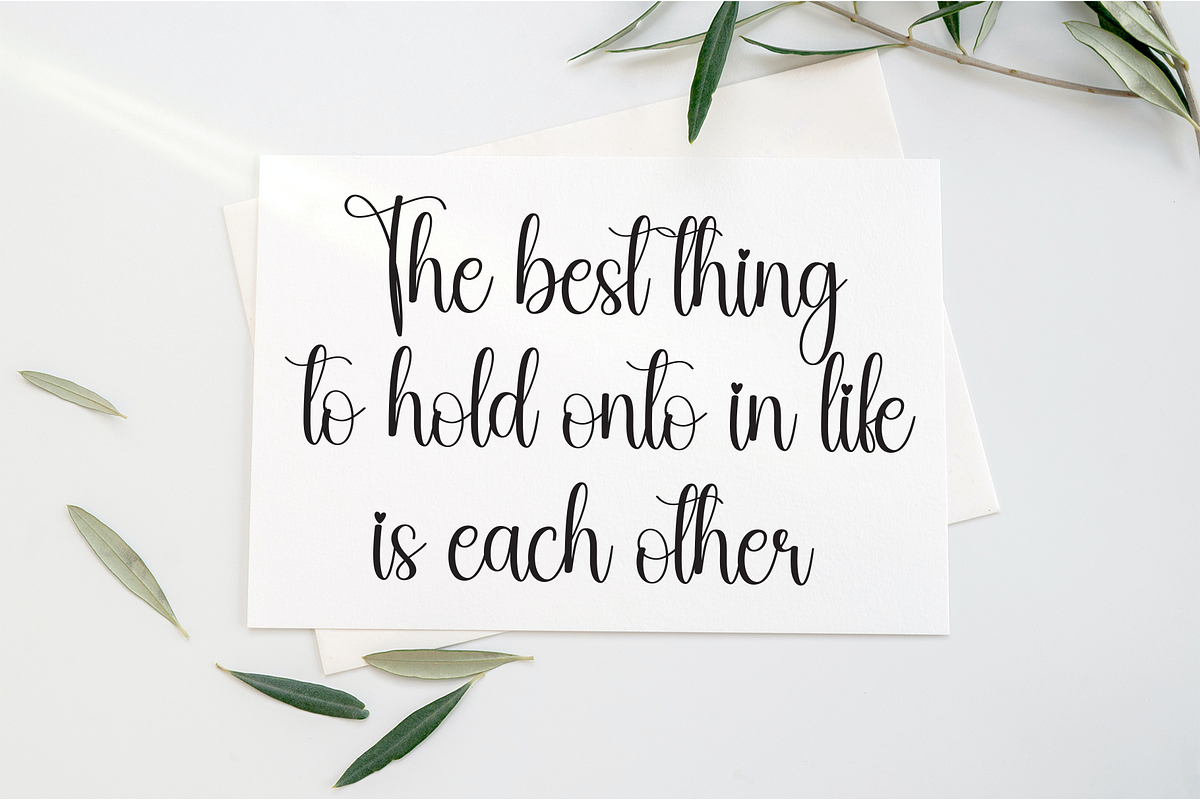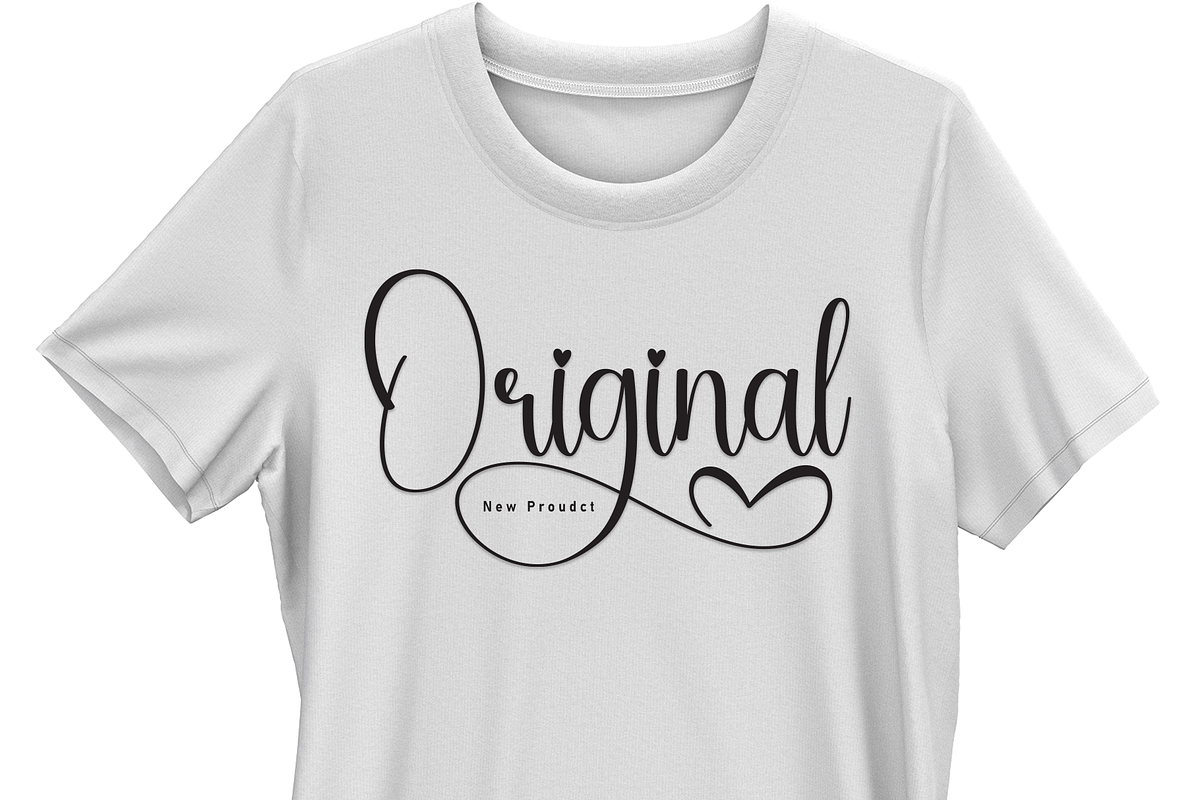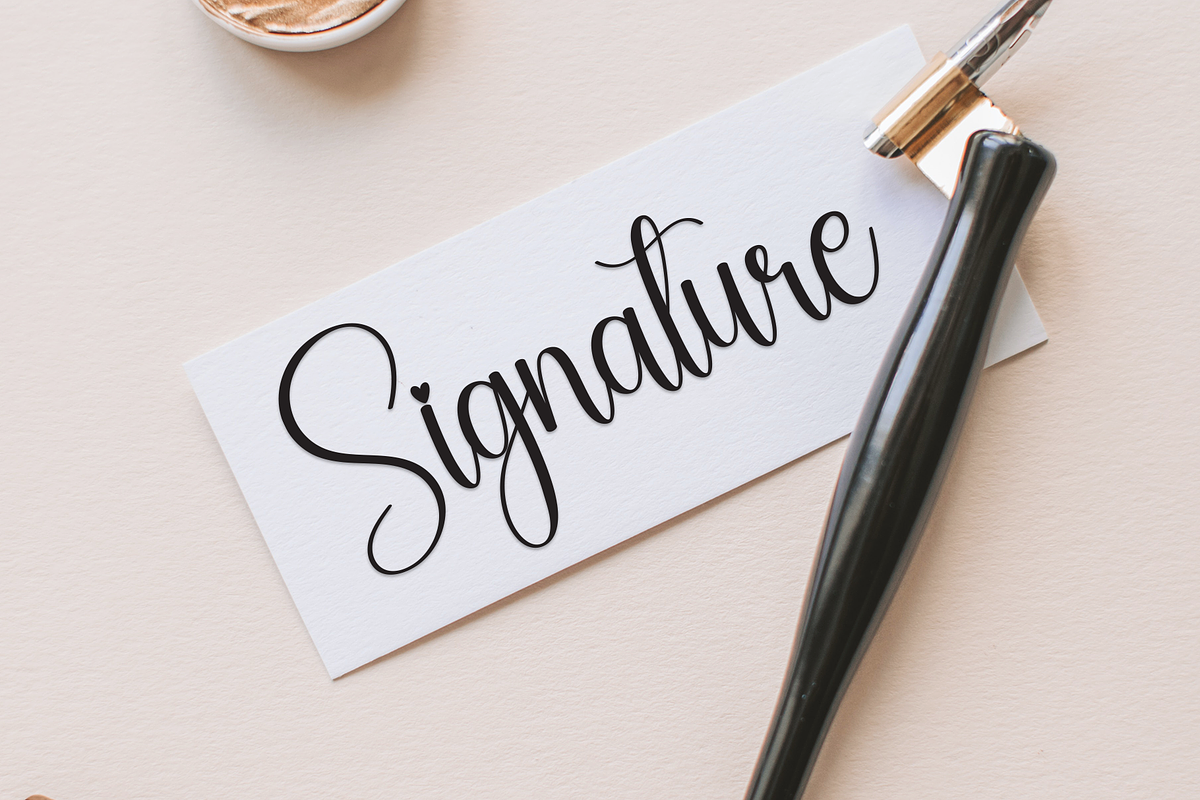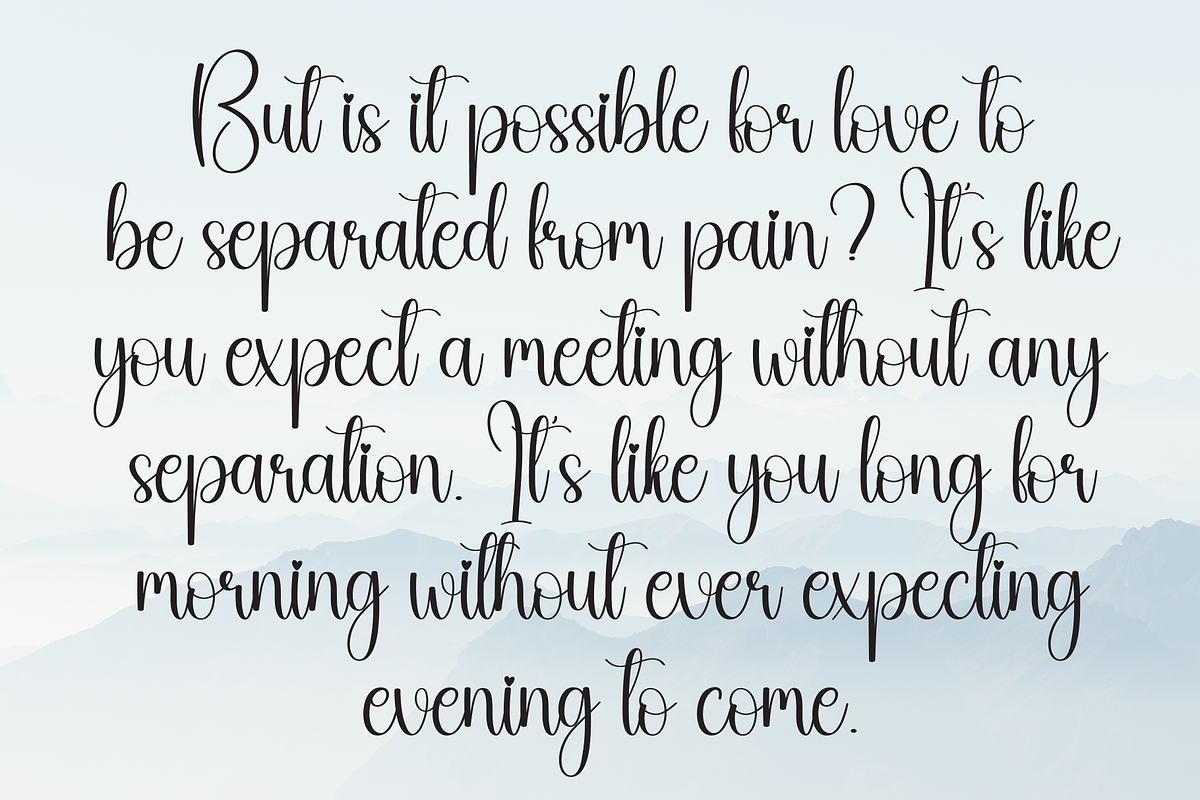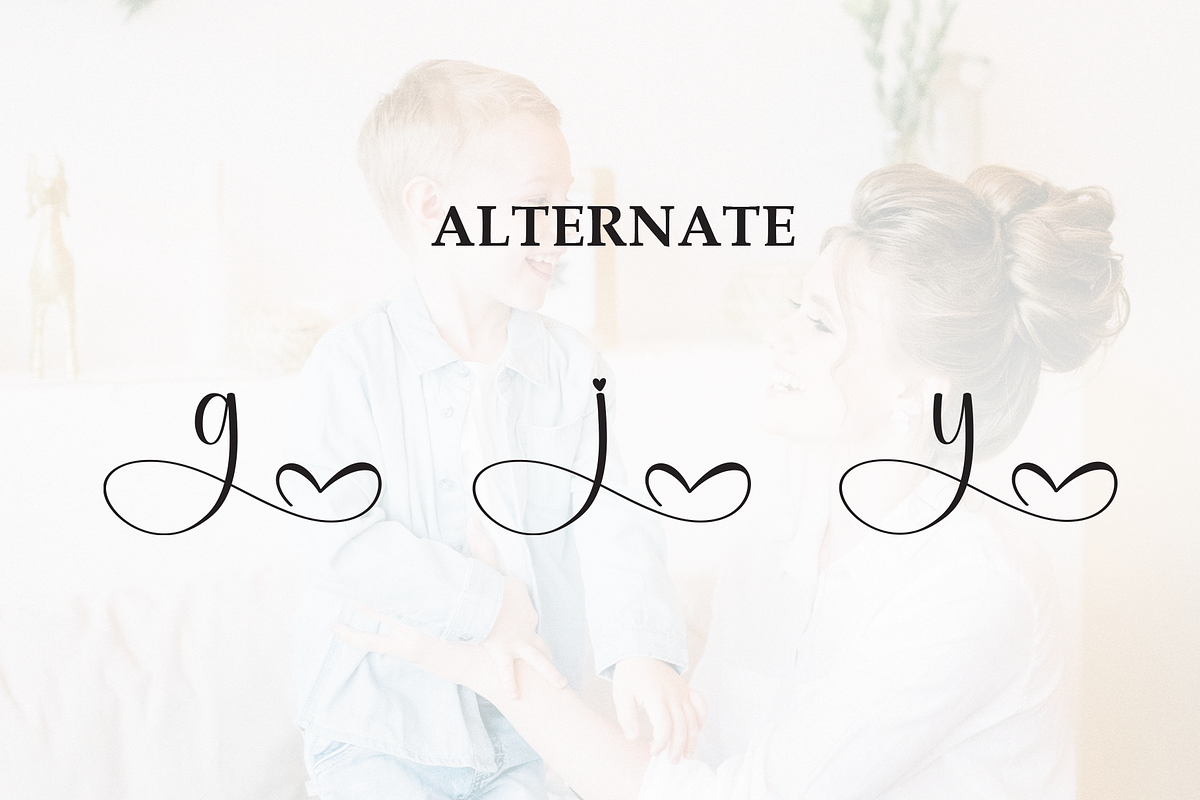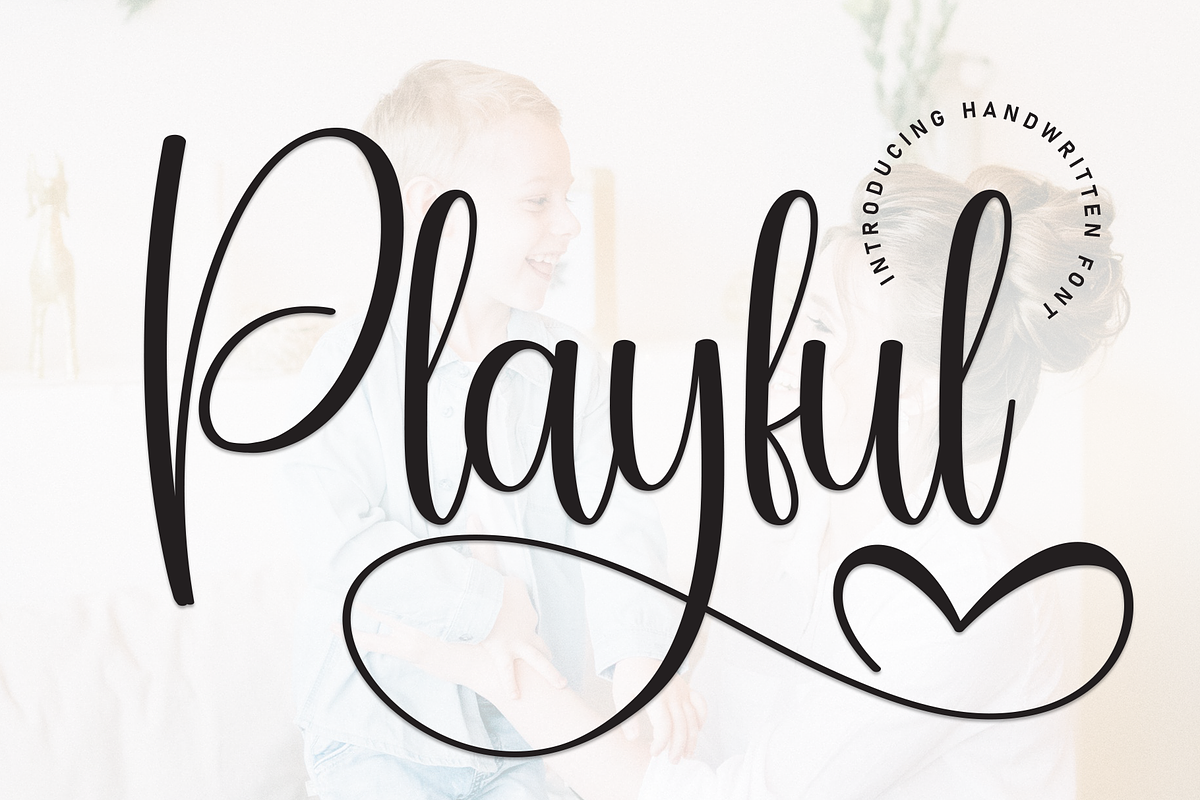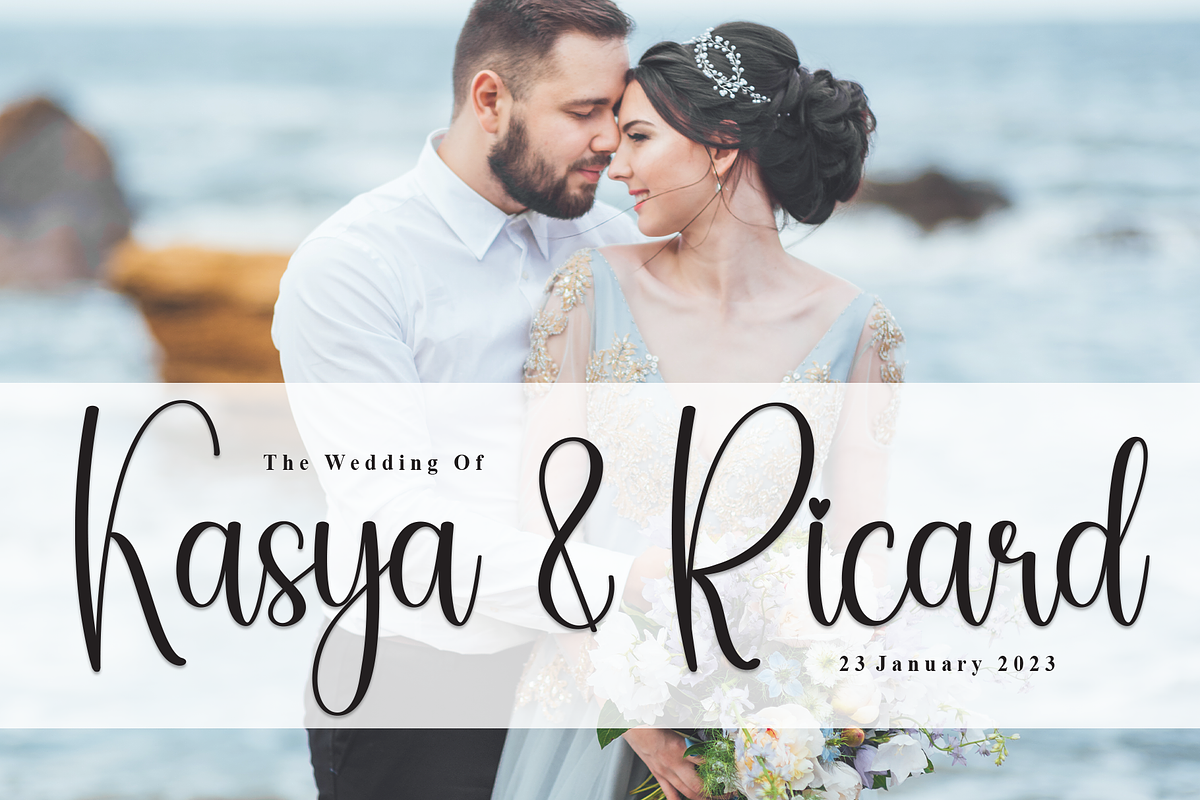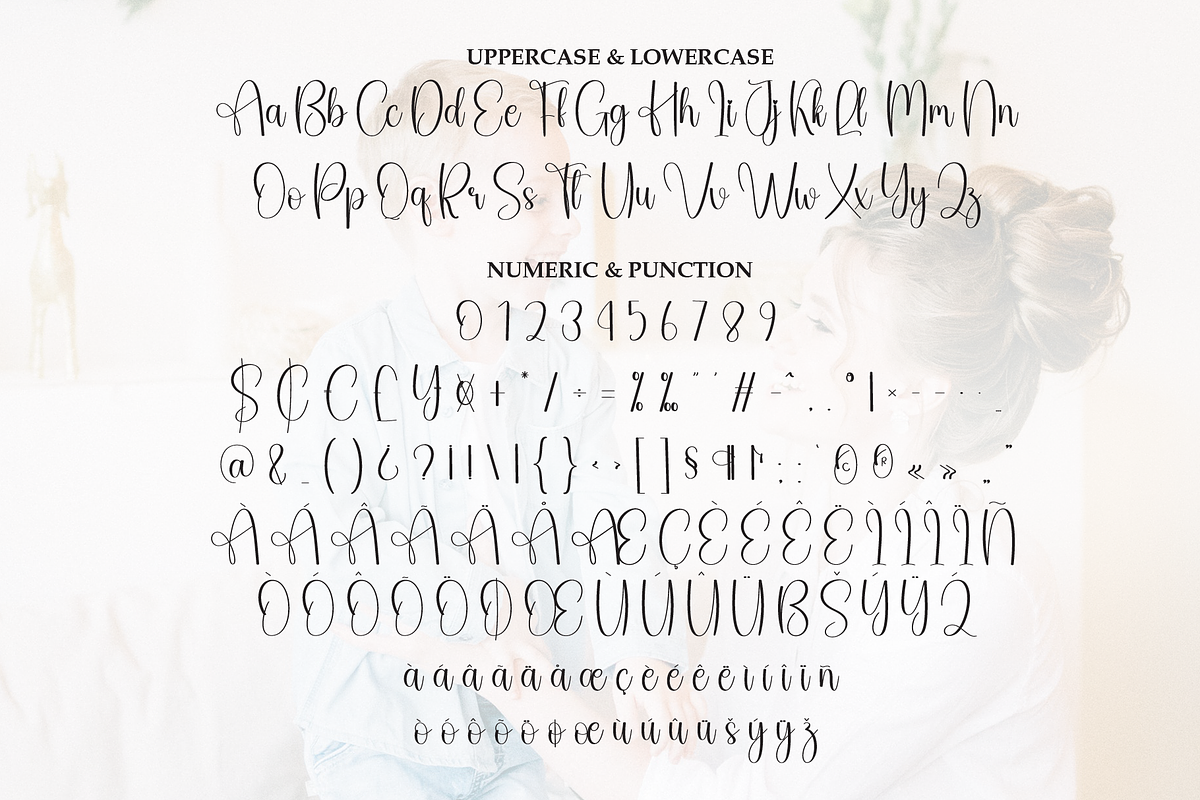
Playful | Script Font
A popular and professional script font. Modern and elegant, this typeface is made of beautiful creative strokes.
This font is perfect for your creative ideas, both formal and informal. It has a modern style with a touch of creative ideas that is very suitable to be applied anywhere that requires creative ideas such as invitation cards,
letterheads, website logos, social media, banners, advertisements, brochures, packaging products, leather products, and any product that requires writing.
By using this font, all of your products will look luxurious, elegant, and attractive, please try and see the results.
This font includes a complete set of beautiful upper and lowercase letters, numbers, a wide variety of punctuation marks, and ligatures. All lowercase letters include a start and end, providing a realistic style. everything you get.
- This font includes a complete set of beautiful upper and lowercase letters, numbers, a wide variety of punctuation marks, and ligatures.
- All lowercase letters include a start and end, providing a realistic style.
Playful | Script Font by Scratchones fits naturally into Branding, posters, packaging, typography.